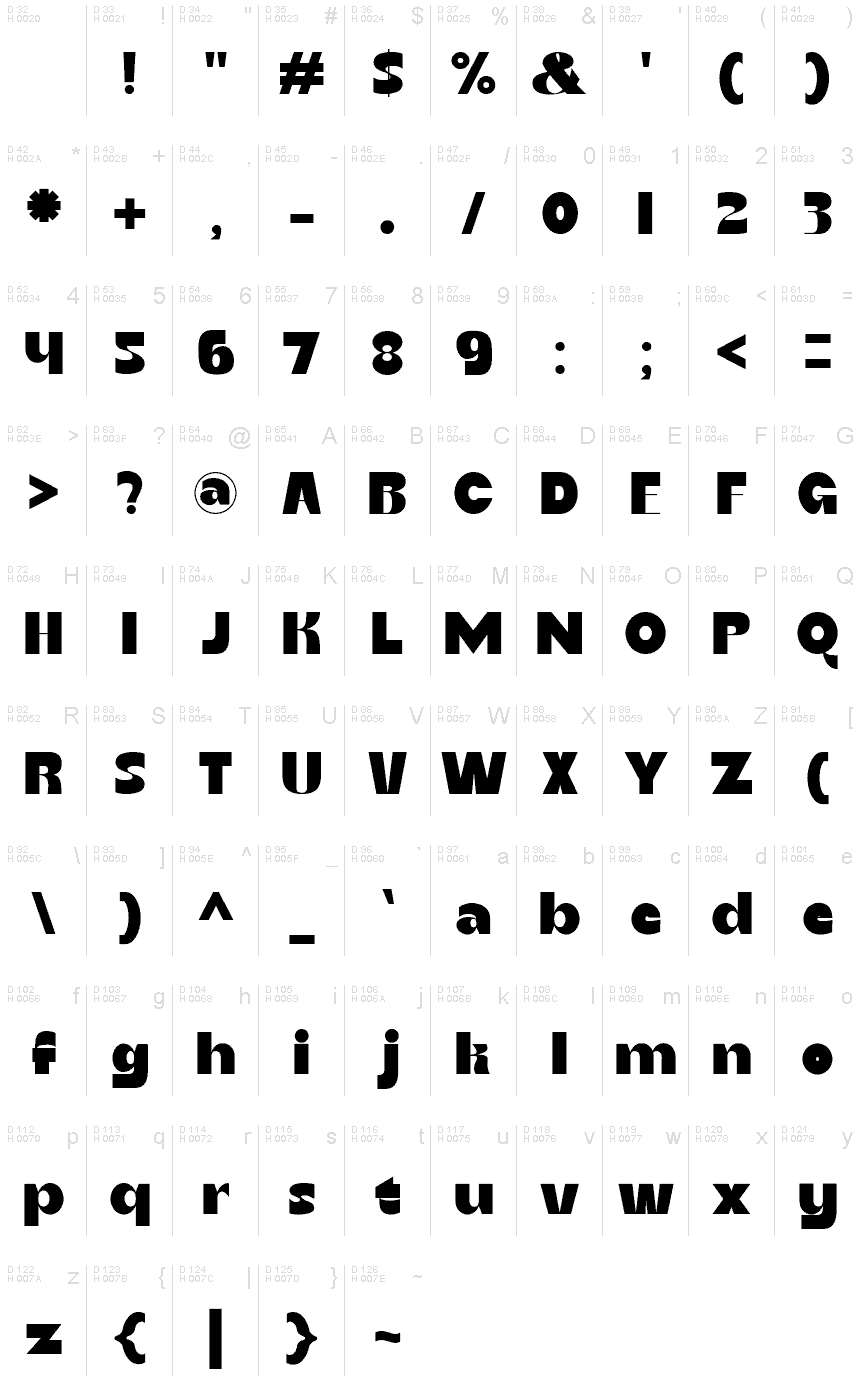
Ratfern Heavy
Ratfern Heavy font by Muksal Creative showcases a bold, geometric structure with a modern aesthetic and strong presence. Its minimalist design and refined curves give this sans serif font a unique appeal combining contemporary style with classic elegance.